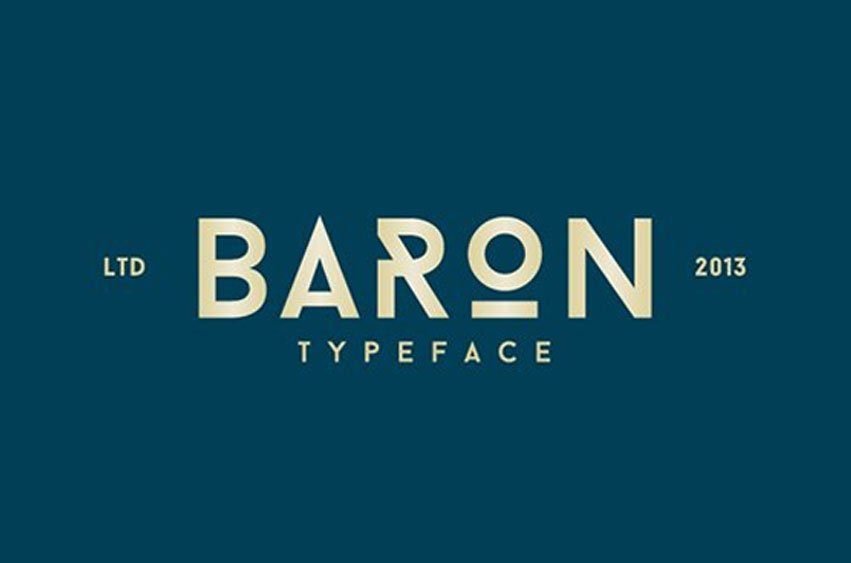
Baron Typeface Font is an uppercase display typeface inspired by the classic sans serif font family’s.
This typeface is, because of his many alternative options, perfect for usage in posters and headlines. Free for personal usage!